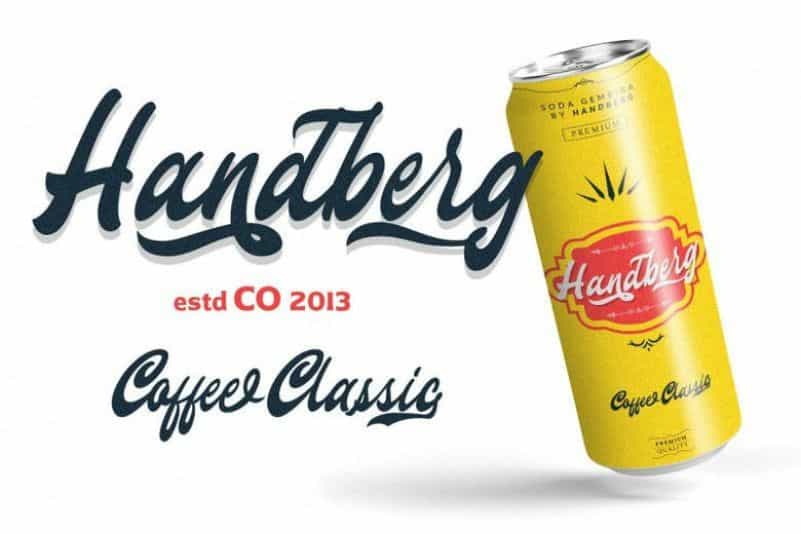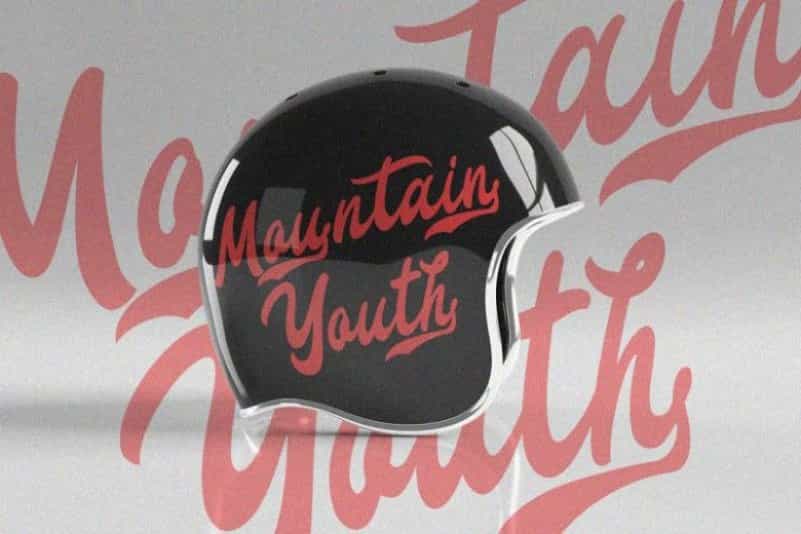
Introducing Callerious Handlettering Font. Callerious designed and shared by Moovied Co.. Callerious Script Inspired by urban, streetwear and vintage made with love handlettering style. Ideal for branding, logos, handwriting quotes, product packaging, headers, posters, merchandise, social media Books / Cover titles, special events, etc.